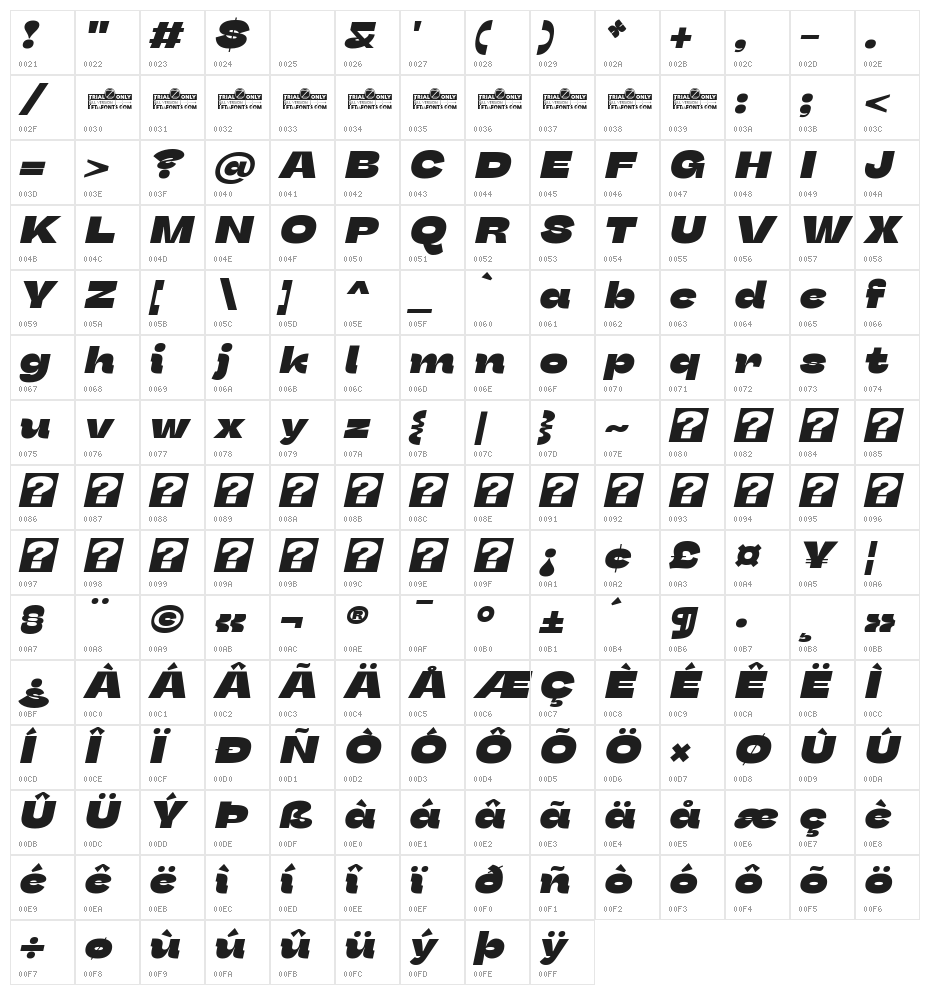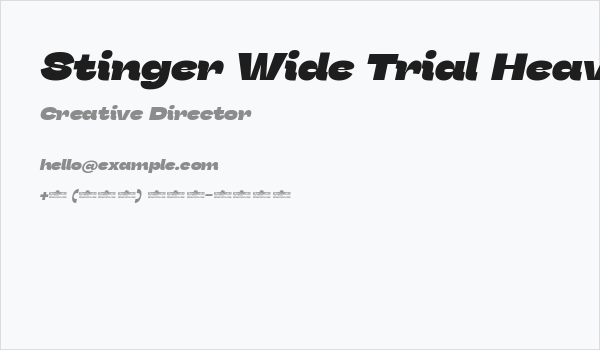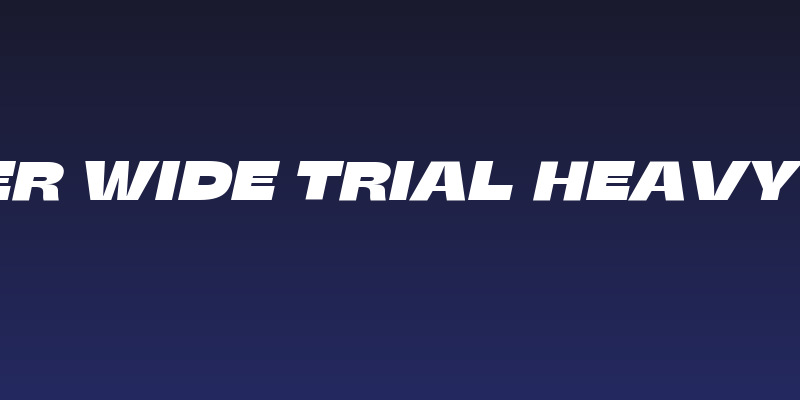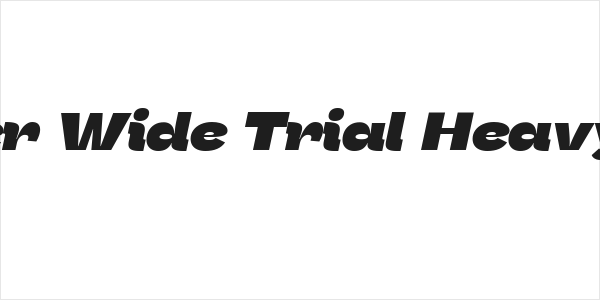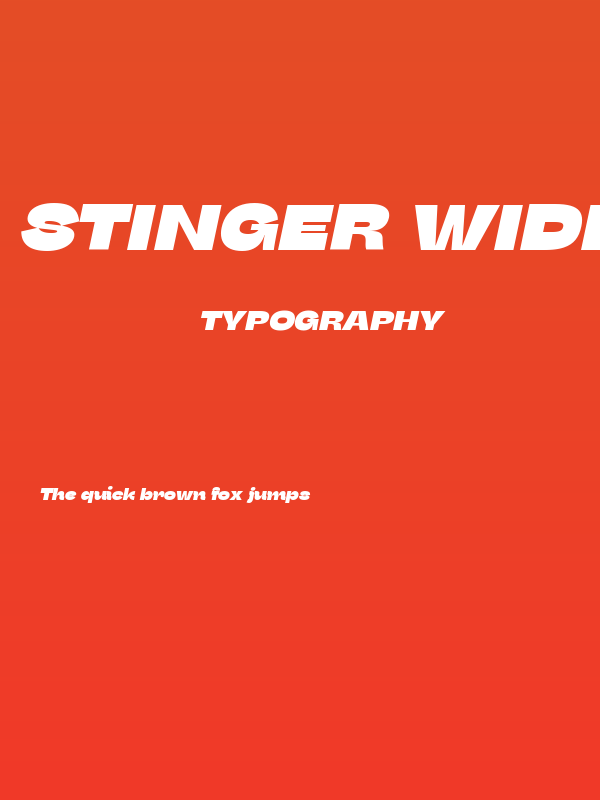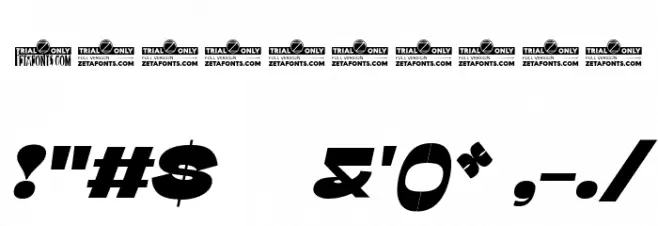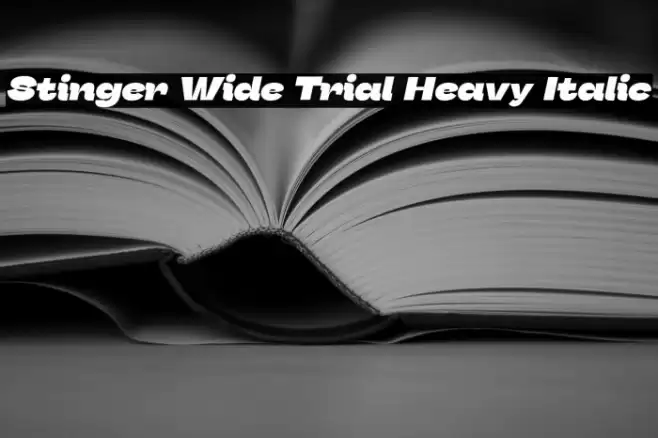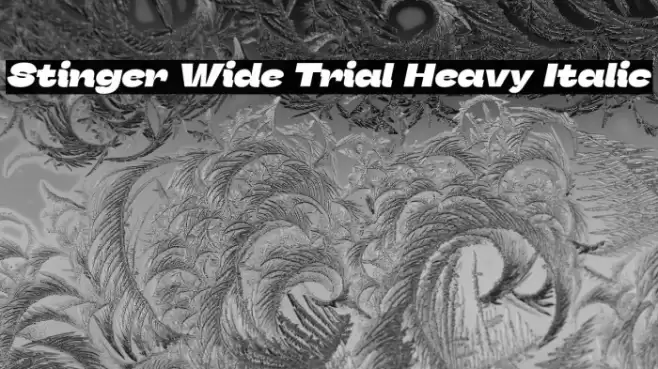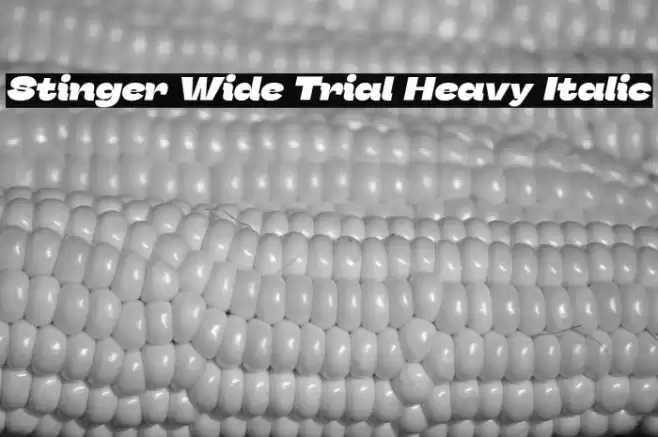
Stinger Wide Trial Heavy Italic Font
This font features a bold and dynamic style with a heavy italic slant, creating a sense of movement and energy. The characters are wide and robust, with a strong presence that commands attention. The strokes are thick and consistent, providing a uniform appearance across all characters. The font's design is modern and sleek, making it suitable for contemporary projects. Its unique style is characterized by a slight forward tilt, enhancing its dynamic look. The wide character set includes both uppercase and lowercase letters, numbers, and a variety of special characters, ensuring versatility in usage.
| Proposed Projects | Ideal for branding, advertising, headlines, and any project requiring a strong visual impact. |